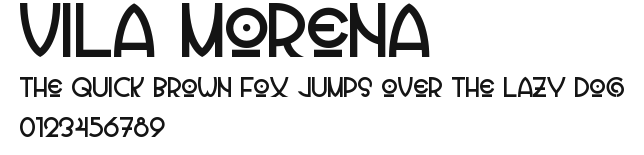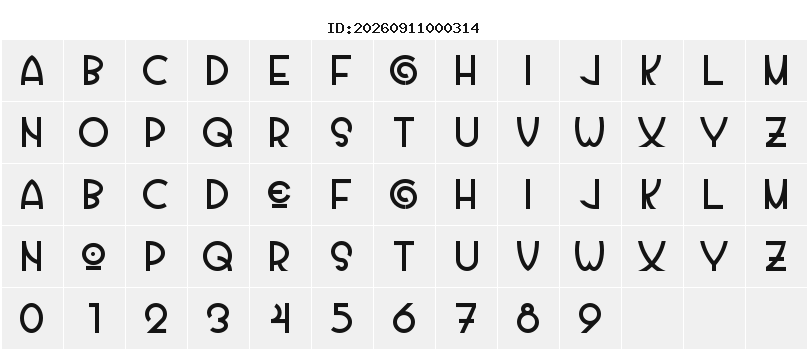
Vila Morena Preview
• Font Name: Vila Morena
• Font ID: Vila Morena
• Full Font Name: Vila Morena
About Vila Morena.ttf
Vila Morena.ttf is a modern, elegant sans-serif font designed for ultimate readability and visual harmony. Perfect for branding, headlines, web design, and print materials.